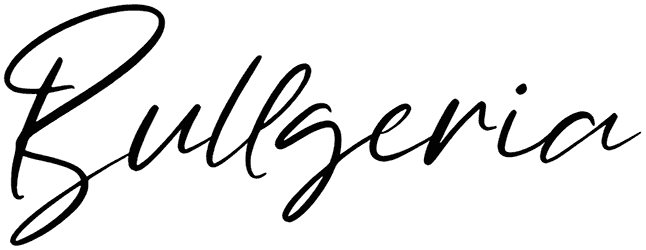
Bullgeria Font
If you’ve been scouring the internet for a fancy signature font, then you’ve come to the right place. Bullgeria is a natural script font that shows that you designed the work from scratch with your bare hands.
This calligraphy font is for those who want to turn every project into personal work and create a sense of close connection with another human being in the viewer. So, it can be a live option for annotation and wedding cards.